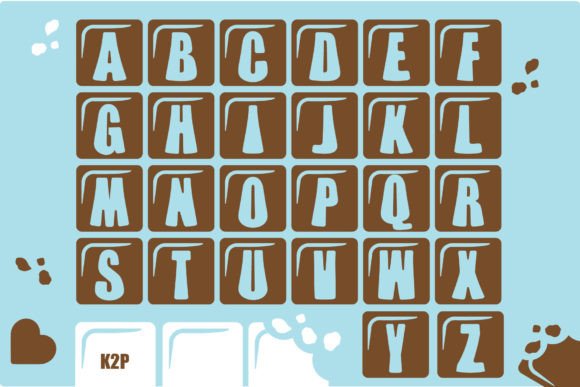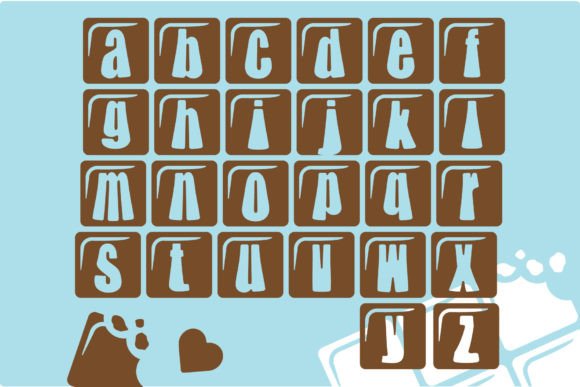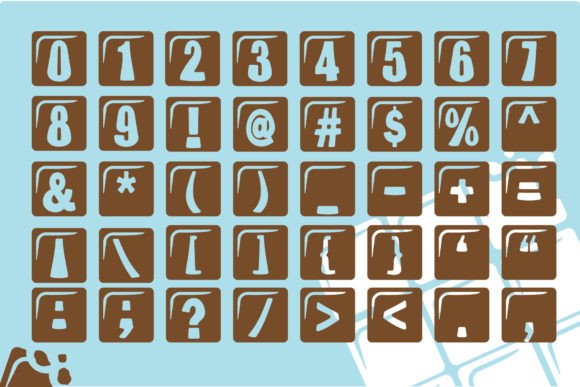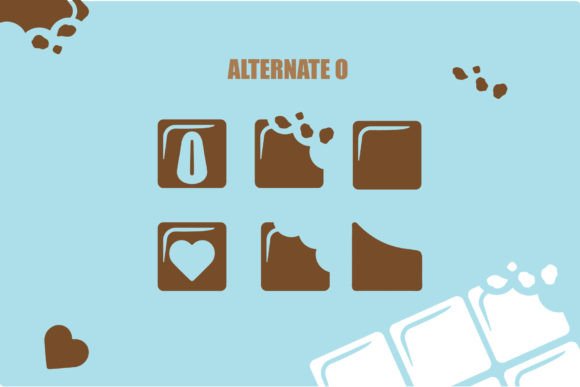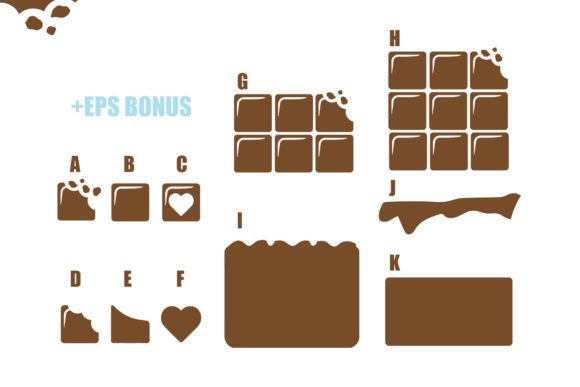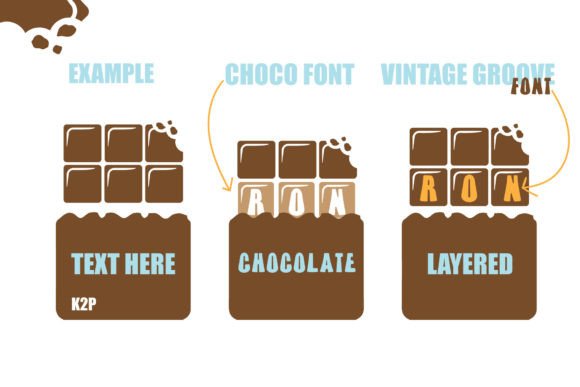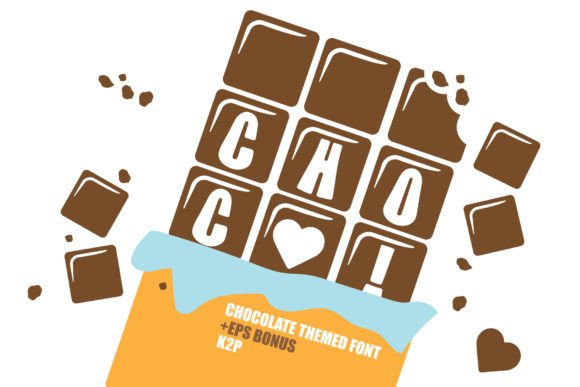
Introducing Choco! Font: The Fun, Retro, and Unique Display Font for Creative Projects
Are you tired of using the same old fonts for your creative projects? Look no further than Choco! Font, a fun, retro, and incredibly unique display font that’s sure to add a touch of personality to your designs. With its versatility and wide range of applications, Choco! Font is perfect for designers, crafters, and anyone looking to add some excitement to their projects.
What Makes Choco! Font So Special?
Choco! Font is a one-of-a-kind display font that’s sure to turn heads. Its retro vibe and playful charm make it perfect for projects that require a bit of whimsy and fun. Whether you’re designing a logo, creating a poster, or crafting a social media graphic, Choco! Font is sure to add a touch of personality and style to your work.
One of the things that sets Choco! Font apart is its incredible versatility. This font can be used for a wide range of applications, from:
• Logos and branding
• Posters and flyers
• Social media graphics and ads
• Packaging and labels
• Invitations and party decorations
Whether you’re working on a personal project or a client’s, Choco! Font is sure to be a great fit.
The Characteristics of Choco! Font
So, what makes Choco! Font so unique? Here are a few of its key characteristics:
• Fun and playful: Choco! Font has a lighthearted and carefree vibe that’s perfect for projects that require a bit of whimsy.
• Retro-inspired: This font takes its cues from classic retro designs, with a nod to vintage typography.
• Unique and quirky: Choco! Font has a one-of-a-kind charm that’s sure to set your projects apart.
• Highly legible: Despite its playful nature, Choco! Font is still highly legible, making it perfect for use in a variety of applications.
How to Use Choco! Font in Your Projects
Ready to give Choco! Font a try? Here are a few tips for incorporating it into your projects:
• Use it as a headline font: Choco! Font is perfect for use as a headline font, where its playful charm can really shine.
• Pair it with a neutral font: For body text, pair Choco! Font with a neutral font to create a nice contrast.
• Experiment with colors and textures: Choco! Font looks great in a variety of colors and textures, so don’t be afraid to get creative.
Why Designers and Crafters Love Choco! Font
So, why do designers and crafters love Choco! Font? Here are a few reasons:
• It’s a time-saver: With Choco! Font, you can add a professional touch to your projects in no time.
• It’s versatile: This font can be used for a wide range of applications, making it a great addition to any design toolkit.
• It’s fun and creative: Choco! Font is the perfect way to add a bit of personality and whimsy to your projects.
Whether you’re a seasoned designer or a crafty DIY enthusiast, Choco! Font is a great choice for anyone looking to add some excitement to their projects.
In conclusion, Choco! Font is a fun, retro, and incredibly unique display font that’s perfect for designers, crafters, and anyone looking to add some personality to their projects. With its versatility, playful charm, and wide range of applications, Choco! Font is sure to be a great fit for any creative project. So why not give it a try and see what amazing things you can create?